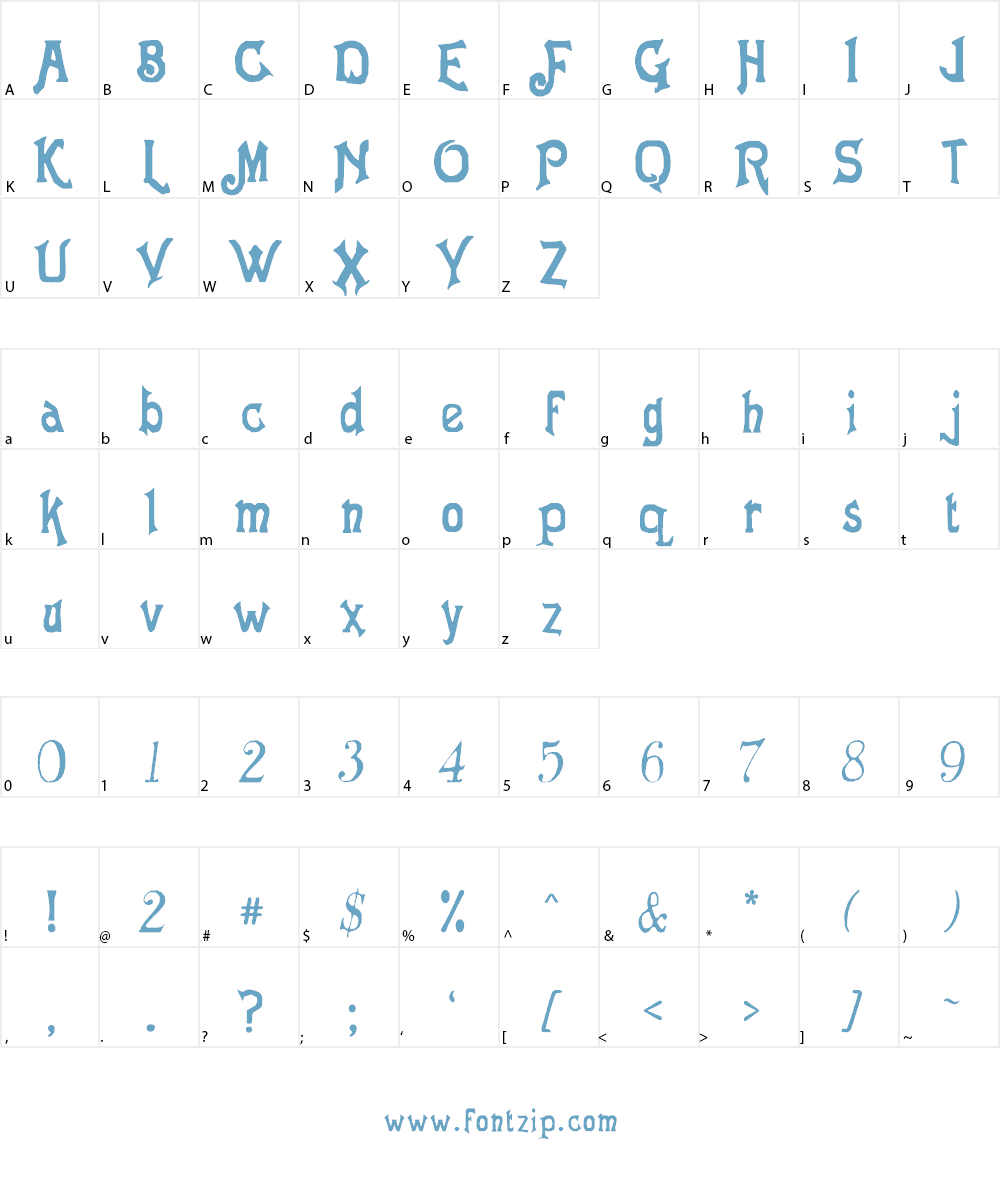
This font was inspired by a caption on a 1909 newspaper that said "It's Enough To Make a Frog Laugh'". At the time this newspaper was printed, it was done in the old method.